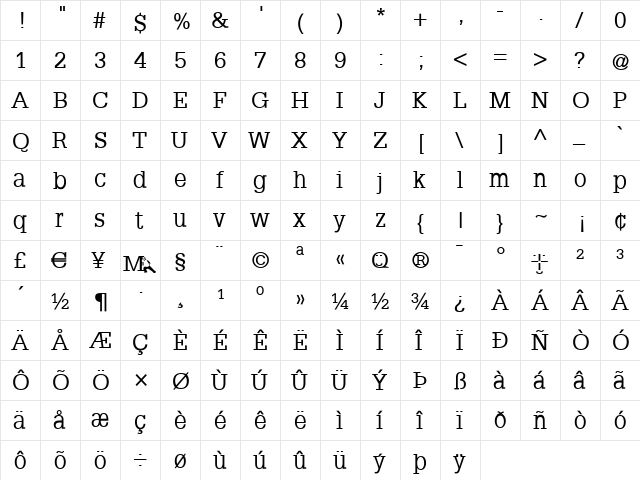
SteepSlab-Medium Regular Font Preview
SteepSlab-Medium Regular
Design Context for SteepSlab-Medium Typeface
SteepSlab-Medium combines the readability of serif typography with the visual weight of a slab construction, resulting in a typeface that feels both authoritative and approachable.
Works well in editorial design, news publishing, impactful branding, and poster typography.
Pro Tip: Try SteepSlab-Medium set tight in headlines for a classic editorial feel. Its slab serifs create strong horizontal rhythm that anchors a page layout.